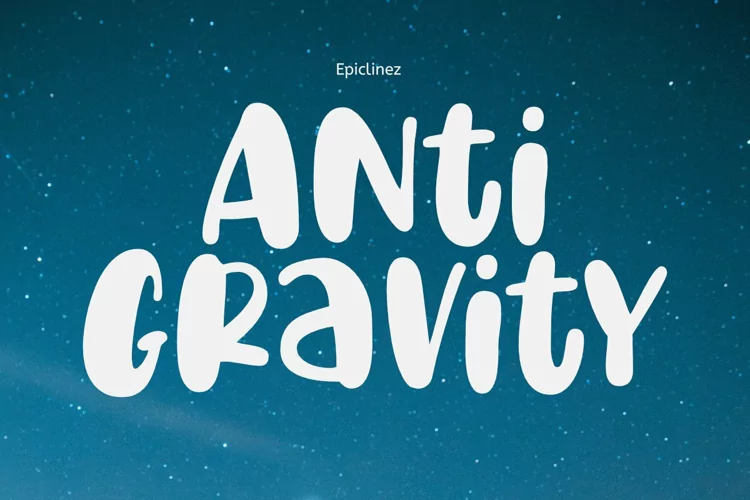
Anti Gravity is a cute and funny handwritten font. It’s simple and playful style makes this design incredibly versatile, fitting a wide variety of creative ideas.
Anti Gravity